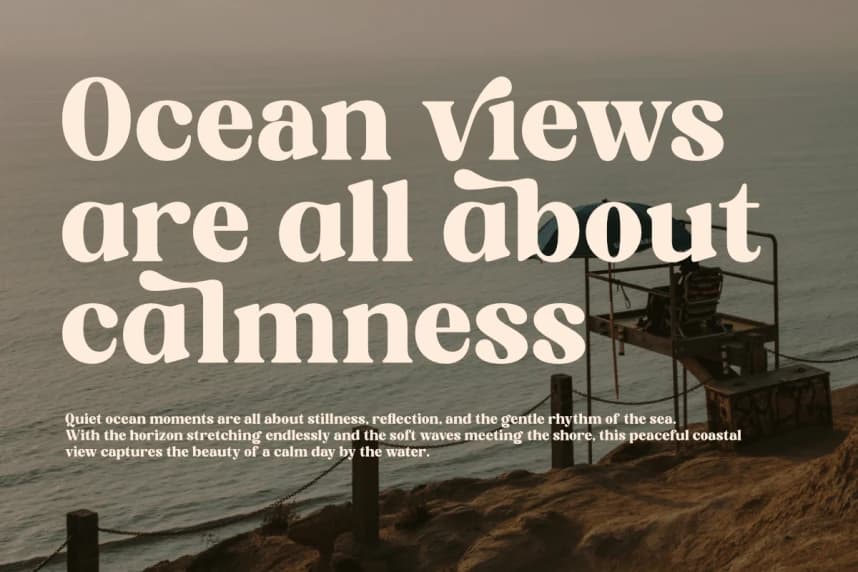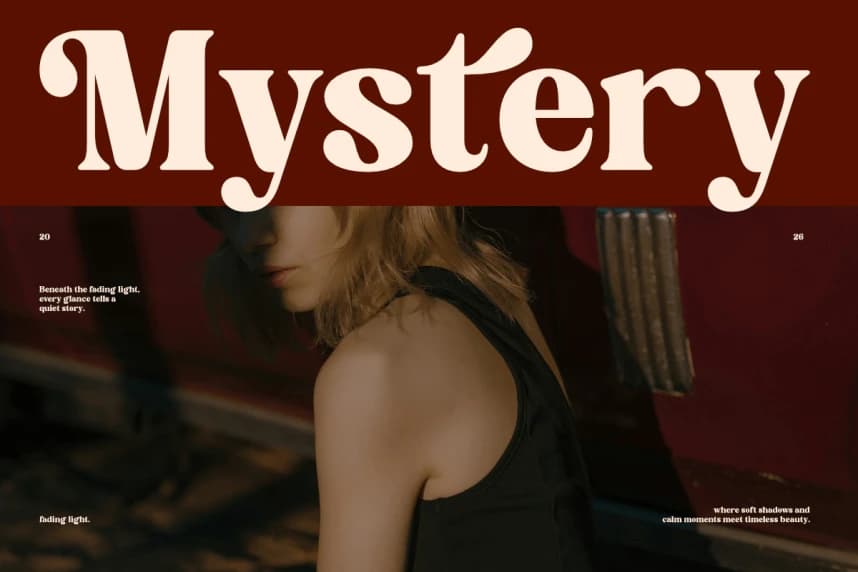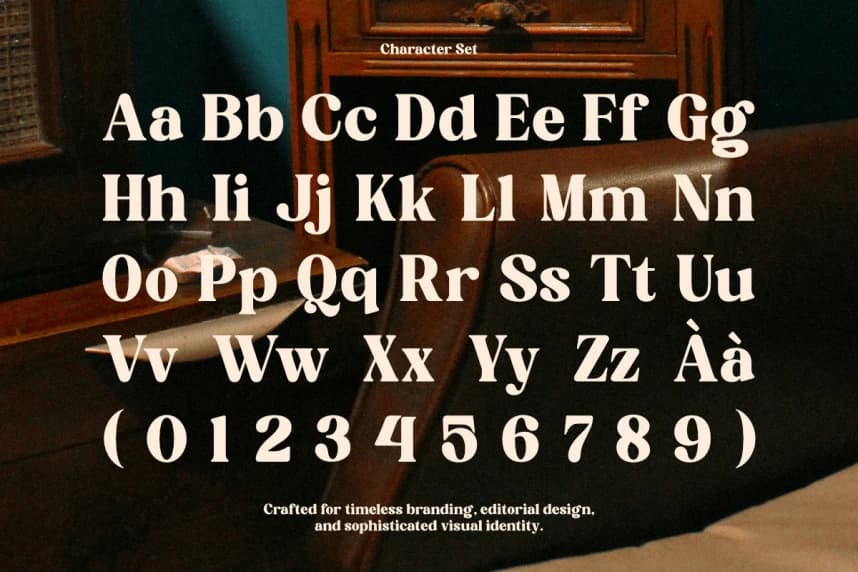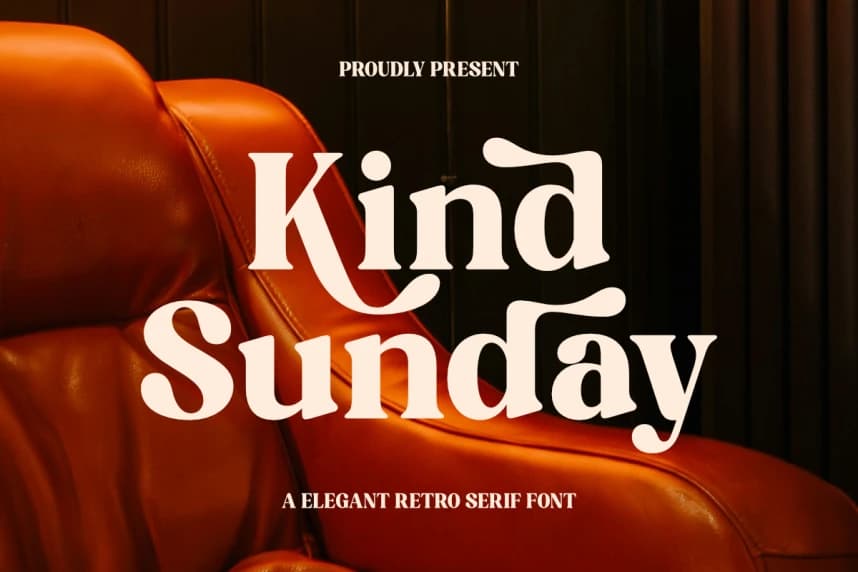
Kind Sunday Font is an elegant retro serif typeface crafted to bring timeless charm and refined personality into modern design. Designed with soft curves, distinctive serifs, and expressive letterforms, Kind Sunday delivers a graceful yet confident presence.